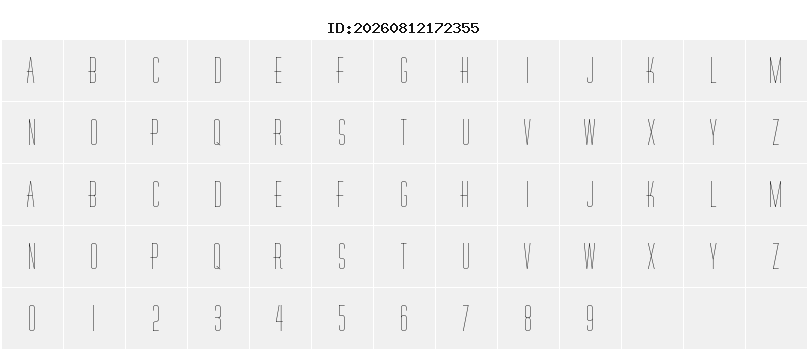
• Font Name: RhyOlver
• Font ID: RhyOlver Regular:
• Full Font Name: RhyOlver
• PostScript Name: RhyOlver
About RhyOlver.ttf
RhyOlver.ttf is a modern, elegant sans-serif font designed for ultimate readability and visual harmony. Perfect for branding, headlines, web design, and print materials.